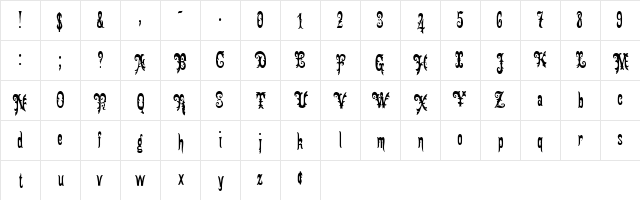
Gingerbread Victorian Regular
Design Context for Gingerbread Victorian Typeface
Gingerbread Victorian is a composed and adaptable typeface that performs quietly and consistently across a wide range of design contexts.